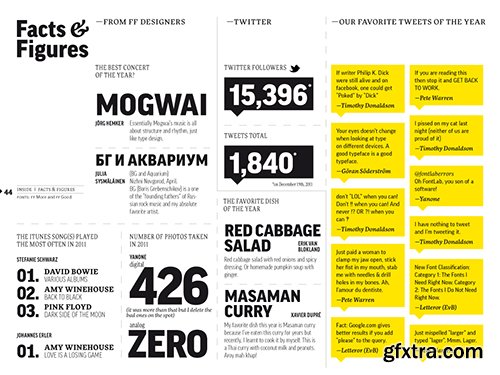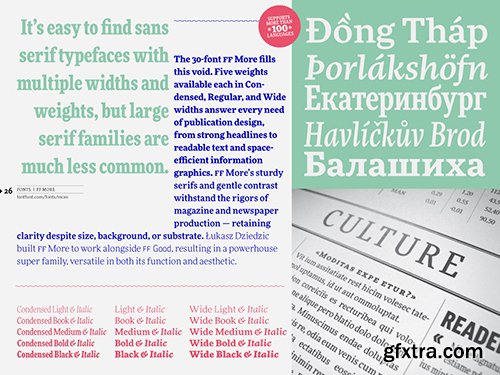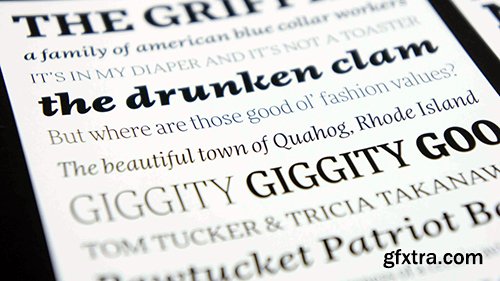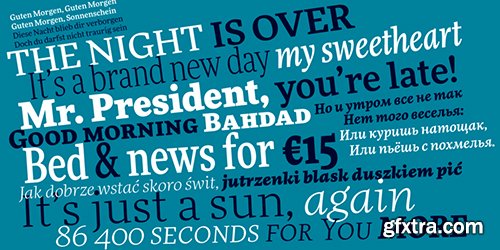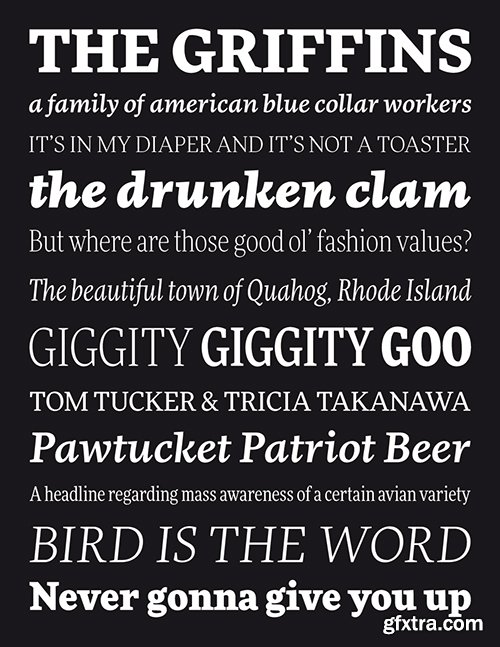
- The family has 30 weights, ranging from Light to Black in Condensed, Normal and Wide (including italics) and is ideally suited for advertising and packaging, book text, editorial and publishing, logo, branding and creative industries as well as small text.FF More provides advanced typographical support with features such as ligatures, small capitals, alternate characters, case-sensitive forms, fractions, and super- and subscript characters.It comes with a complete range of figure set options – oldstyle and lining figures, each in tabular and proportional widths. As well as Latin-based languages, the typeface family also supports the Cyrillic writing system.